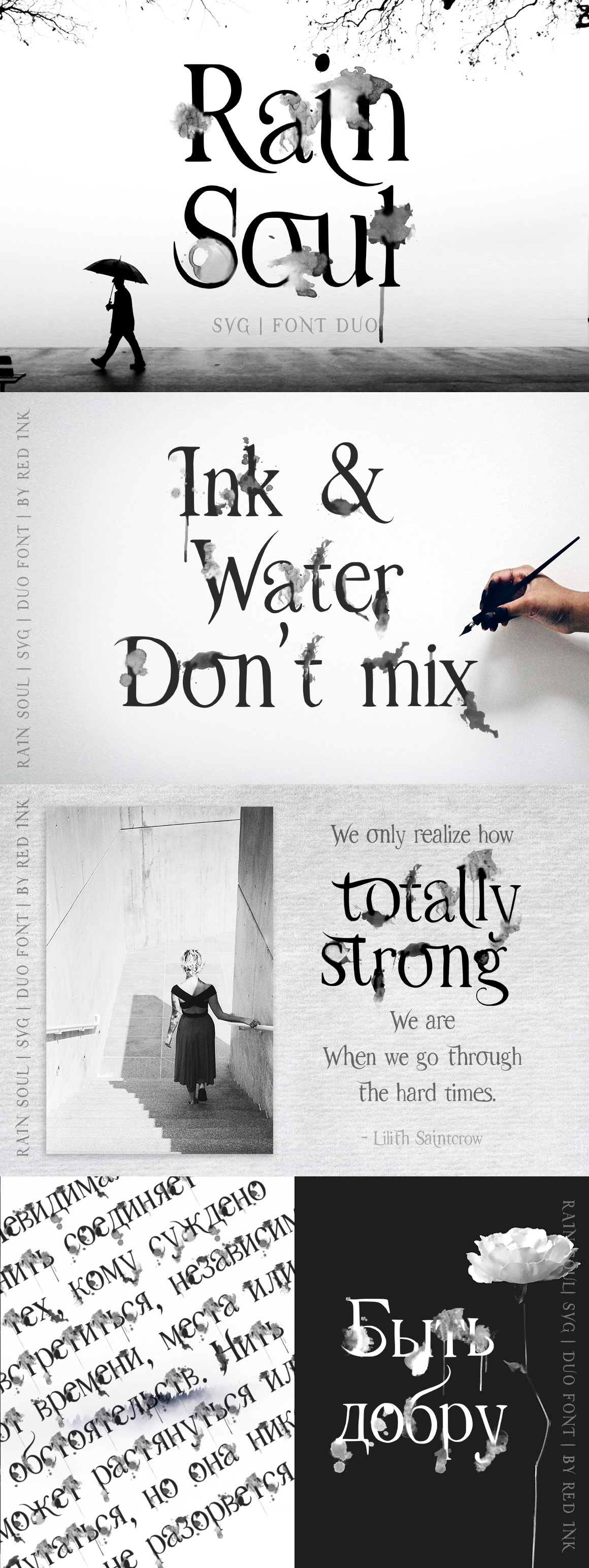
Rain Soul. SVG Font.
I created ‘Rain Soul’ SVG Font, with watercolor hand drawn splashes and symbols in high resolution all symbols fully preserved the watercolor texture with transparency. The full set of letters and tons of ligatures let you to make your designs more realistic and add the real handdrawn feel to your your messages.
You will also get ‘Rain Soul Solid’ font with very similar letters without watercolor texture.
Together these fonts form modern, expressive; perfectly combined typographic harmony is perfect for posters, greeting cards, t-shits, branding materials, quotes and any other amazing projects you are working on. Each font can be used separately. In conjunction they give a sense of lightness and delicacy and some vintage feel )))
Both fonts include multilingual Cyrillic and Latin support. More than 90 languages are included: Western European, Central European and South Eastern European languages. Also included are Russian and Ukrainian languages. Please type characters in text box below to check any characters you need.